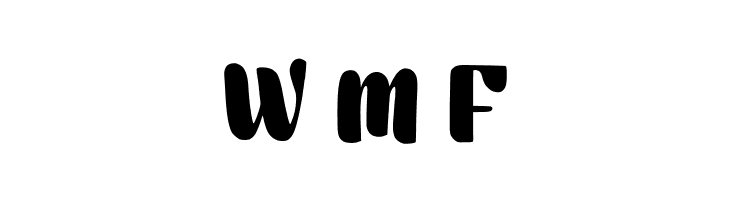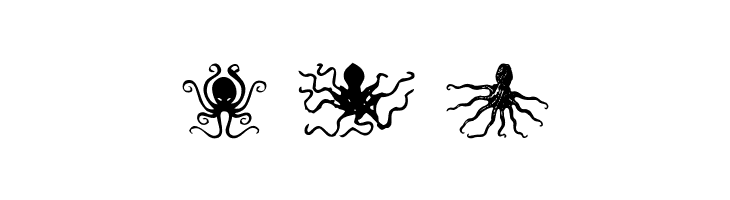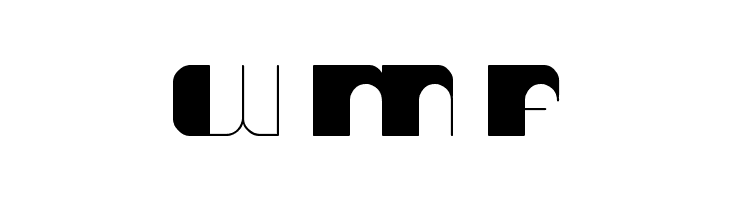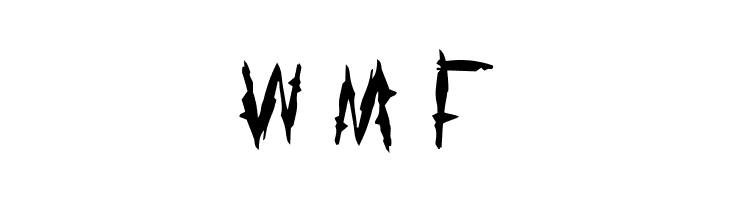
A rugged, distressed font with a vintage western feel.
A bold, industrial stencil-style font with rounded edges and tight spacing.
A distressed, grungy font with irregular edges and a bold, artistic style.
A decorative, distressed font with a grunge-like, chaotic appearance.
A bold, dynamic script font with calligraphic flair and strong presence.
An elegant script font with intricate loops and flowing cursive style.
A bold, expressive handwritten font with dynamic strokes.
A lively handwritten font with fluid, slightly slanted letterforms.
A bold, futuristic font with a distressed, rugged appearance.
A bold, jagged font with sharp edges and a dynamic, hand-drawn style.
A bold, playful font with rounded edges and a whimsical style.
A bold, geometric font with angular shapes and a double-line effect.
Bold, italicized font with a geometric, outlined style for a modern look.
A bold, geometric font with sharp angles and a modern look.
A bold, italicized font with a geometric and dynamic style.
A geometric, angular font with consistent stroke width and a modern aesthetic.
A modern, geometric light italic font with angular lines.
A decorative dingbat font with diverse octopus illustrations.
A dynamic and fluid script font with elegant, flowing lines.
A playful, hand-drawn font with sketch-like strokes and artistic flair.
A bold, geometric font with sharp angles and a futuristic feel.
A modern, cursive font with smooth, continuous strokes and elegant curves.
A bold, stencil-like font with thick strokes and cut-out sections, ideal for impactful designs.
A bold, jagged font with an artistic, graffiti-like style.
A bold, brush-style font with dynamic, expressive strokes.
An elegant, flowing script font with ornate uppercase and smooth lowercase letters.
A bold, playful font with rounded, whimsical characters.
A bold, rounded font with a playful and bubbly style.
A bold, expressive script font with elegant, flowing cursive letters.
A meme-inspired decorative font using hand-drawn internet meme faces as glyphs.
A bold, brush-stroke font with a textured, artistic style.
A bold, flowing script font with elegant, cursive letterforms.
A thin, elongated font with a modern and elegant style.
A futuristic, techno-inspired font with bold geometric shapes and thin lines.